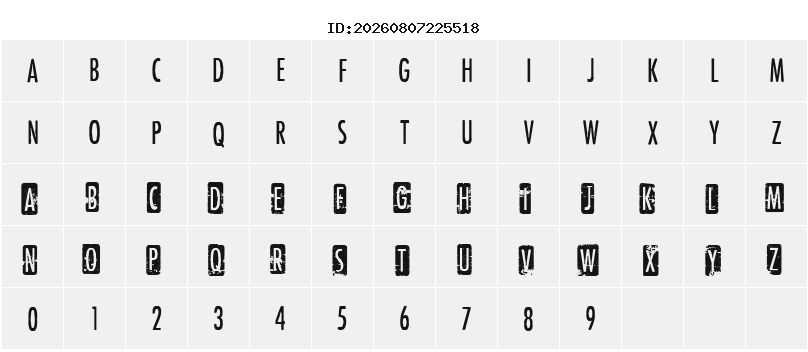
• Font Name: PunkRockShow
• Designer: Steve Cloutier
• Manufacturer: CloutierFontes
About PunkRockShow.ttf
PunkRockShow.ttf is a modern, elegant sans-serif font designed for ultimate readability and visual harmony. Perfect for branding, headlines, web design, and print materials.